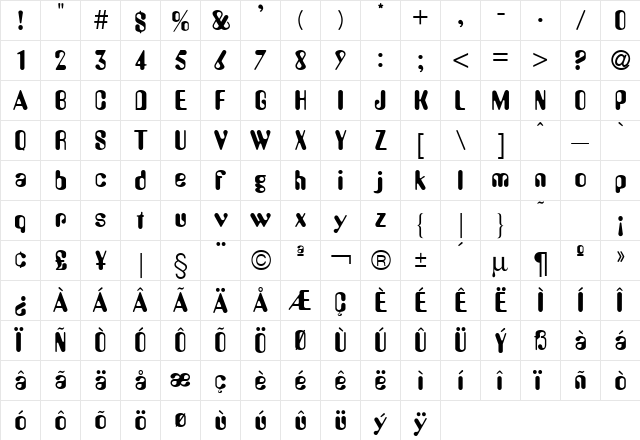
Amy Regular Font Preview
Amy Regular
Amy Regular Font Details
Design Context for Amy Typeface
Amy offers clean, dependable letterforms without strong stylistic allegiance, making it a practical choice for designers who need flexibility.